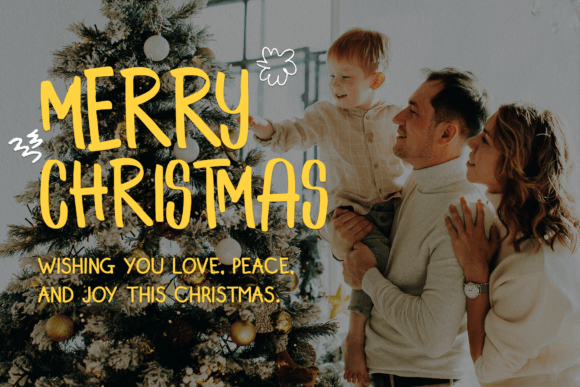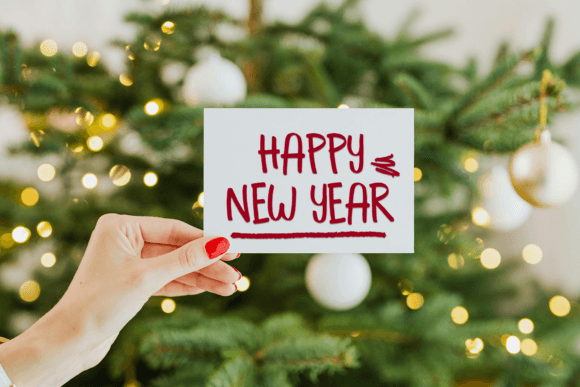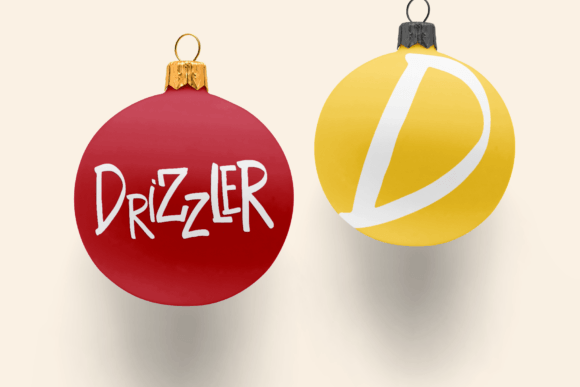
Introducing Drizzler: The Festive Font to Sprinkle Holiday Cheer
It’s that time of the year again – the season of joy, giving, and, of course, designing holiday projects! I still remember the year I spent hours searching for the perfect font for a client’s Christmas card campaign. The project required a font that was both festive and elegant, but it seemed like every font I found was either too generic or too over-the-top. That’s when I stumbled upon Drizzler, a delightful sans font that captured the whimsy of the season. In this article, I’ll share my experience with Drizzler, its features, and how to make the most of this charming font in your holiday designs.
A Personal Design Moment: Finding the Perfect Holiday Font
As a designer, I’ve had my fair share of late nights scouring font libraries for that one special font that will make a project shine. One particular instance that stands out was when I was working on a Christmas card campaign for a client. I needed a font that was festive, yet elegant; fun, yet sophisticated. After hours of searching, I finally stumbled upon Drizzler, and it was love at first sight! The tall, playful characters and fun, slightly quirky lines instantly brought to mind the joy and warmth of the holiday season.
An Honest Review of Drizzler
- ✅ Unique, decorative style that adds personality to any design
- ✅ Perfectly suited for holiday cards, gift tags, seasonal banners, and more
- ✅ Tall, playful characters that bring a sense of fun and whimsy
- ✅ Easy to read, even at smaller font sizes
- ⚠️ Some characters may not work well at very small font sizes (less than 10pt)
- ⚠️ Limited use outside of holiday-themed designs (may not be suitable for more formal or corporate projects)
The Story Behind Drizzler: A Designer Inspiration
Drizzler was designed by a team of creatives who wanted to capture the magic of the holiday season in a font. Inspired by the twinkling lights, snowflakes, and festive decorations that fill the air during this time of year, they crafted a font that’s both playful and elegant. The result is a font that’s sure to bring a smile to anyone’s face.
Q: What type of designs is Drizzler best suited for?
A: Drizzler is perfect for holiday-themed designs, such as Christmas cards, gift tags, seasonal banners, and more.
Q: Does Drizzler support OpenType features?
A: Yes, Drizzler supports OpenType features, including glyphs and stylistic alternates.